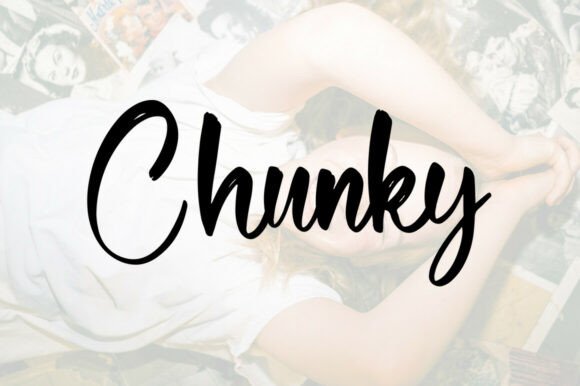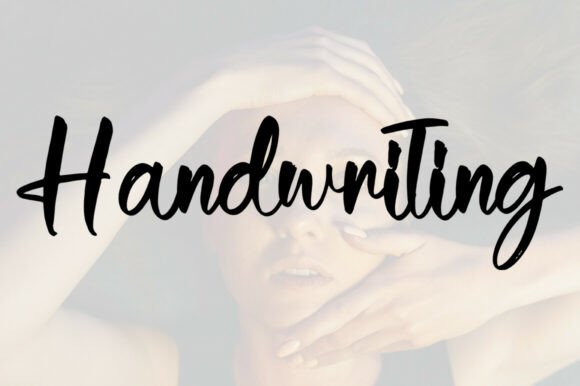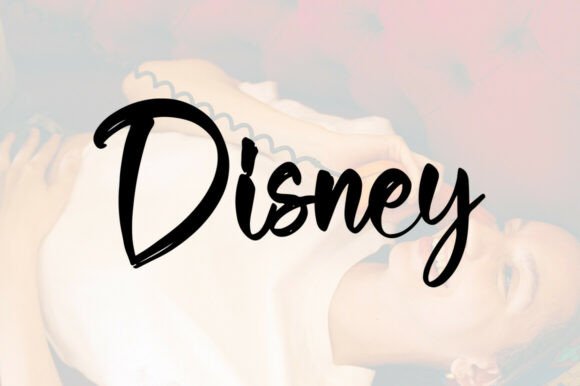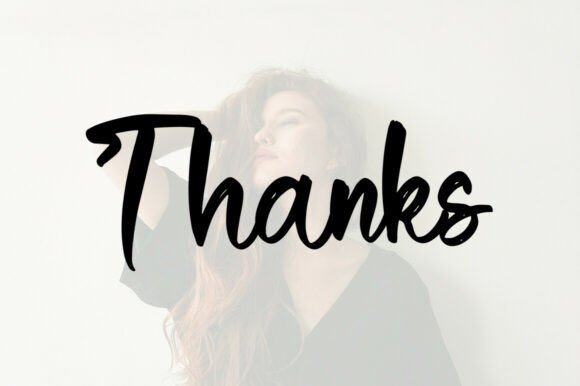
Discover the Charm of Anantha Font: Elevate Your Designs with a Timeless Handwritten Style
Are you on the hunt for a font that adds a personal touch to your designs? Look no further than Anantha Font, a lovely and timeless handwritten font that is sure to capture the hearts of designers and crafters alike. With its unique and beautiful touch, Anantha is the perfect choice for creating eye-catching logos, branding, and quotes that stand out from the crowd.
Handwritten fonts have a way of adding a personal and emotional touch to any design. They evoke feelings of warmth, authenticity, and creativity, making them perfect for designs that require a human touch. Anantha Font is no exception, with its delicate and elegant strokes that bring a sense of sophistication and refinement to any design.
What Makes Anantha Font Special?
So, what sets Anantha Font apart from other handwritten fonts? For starters, every letter has a unique and beautiful touch that makes it truly one-of-a-kind. The font’s creator has poured their heart and soul into crafting each letter, resulting in a font that is both visually stunning and highly legible.
Anantha Font is also incredibly versatile, making it suitable for a wide range of design applications. Whether you’re creating a logo, branding materials, or social media graphics, Anantha Font is the perfect choice. Its timeless style ensures that your designs will never go out of fashion, and its elegance makes it perfect for high-end brands and luxury products.
Uses for Anantha Font
Anantha Font is a font that can be used in a variety of design applications, including:
- Logo Design: Create a lasting impression with a custom logo that incorporates Anantha Font. Its unique and beautiful touch makes it perfect for creating memorable and iconic logos.
- Branding: Establish your brand’s identity with Anantha Font. Its elegance and sophistication make it perfect for high-end brands and luxury products.
- Quotes and Posters: Add a personal touch to your quotes and posters with Anantha Font. Its delicate and elegant strokes make it perfect for creating visually stunning graphics.
- Social Media Graphics: Elevate your social media graphics with Anantha Font. Its timeless style ensures that your graphics will never go out of fashion.
Tips for Using Anantha Font
Here are a few tips for getting the most out of Anantha Font:
- Use it sparingly: Anantha Font is a font that packs a punch, so use it sparingly to avoid overwhelming your design.
- Pair it with other fonts: Experiment with pairing Anantha Font with other fonts to create a unique and visually stunning design.
- Experiment with colors: Anantha Font looks great in a variety of colors, so don’t be afraid to experiment and find the perfect color for your design.
In conclusion, Anantha Font is a lovely and timeless handwritten font that is sure to elevate your designs to the next level. Its unique and beautiful touch makes it perfect for creating eye-catching logos, branding, and quotes that stand out from the crowd. With its versatility, elegance, and sophistication, Anantha Font is a must-have for any designer or crafter looking to add a personal touch to their designs.